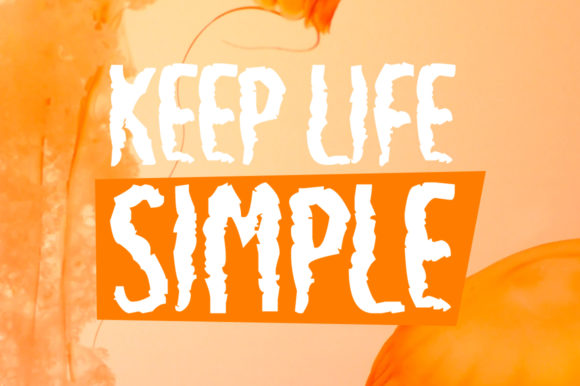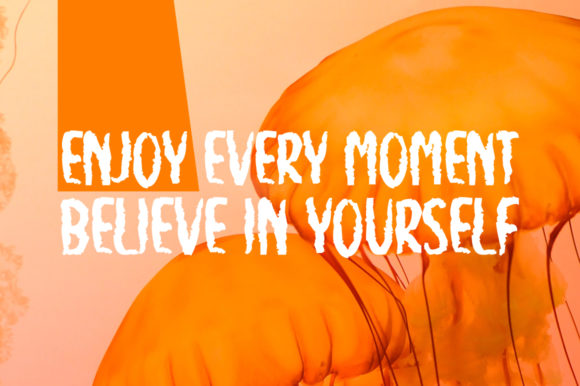
The Designer’s Delight: Gorsifa Font
I’ll never forget the time I was working on a project for a client who wanted a bold, eye-catching font to capture the essence of their brand. I scoured the internet, tried countless fonts, but nothing seemed quite right. That was until I stumbled upon Gorsifa Font. This grungy display font with a bold feel instantly resonated with me, and I knew I had found the perfect fit. In this article, I’ll share my experience with Gorsifa Font, its unique features, and how to make the most of it in your design projects.
A First Impression: What I Love About Gorsifa Font
Gorsifa Font has quickly become a favorite in my design arsenal, and here’s why:
- ✨ Unique Charm: Gorsifa Font adds a distinctive touch to any design project, making it stand out from the crowd.
- ✅ Bold and Grungy: The font’s bold feel and grungy texture give it an edgy, industrial look that’s perfect for designs that require a bit of attitude.
- 💡 Versatile: Despite its bold nature, Gorsifa Font can be used in various design contexts, from posters and flyers to logos and branding materials.
While Gorsifa Font is an excellent choice for many design projects, there are a few things to keep in mind:
- 🤔 Legibility at Small Sizes: Due to its grungy texture and bold feel, Gorsifa Font can become less legible at smaller font sizes. It’s best used at larger sizes where its unique characteristics can shine.
- ⚠️ Overuse: As with any bold font, it’s easy to overuse Gorsifa Font. Make sure to balance it with other design elements to avoid overwhelming your audience.
Gorsifa Font was inspired by the urban landscapes of the 1980s. The designer, who remains somewhat anonymous, wanted to create a font that captured the gritty, industrial feel of the city streets. The result is a font that’s both bold and grungy, perfect for designs that require a bit of attitude.
| Font Name | Gorsifa Font |
| Author | Nuovo Tocco |
| What is Gorsifa Font best used for? | Gorsifa Font is best used for designs that require a bold, eye-catching font, such as posters, flyers, logos, and branding materials. |